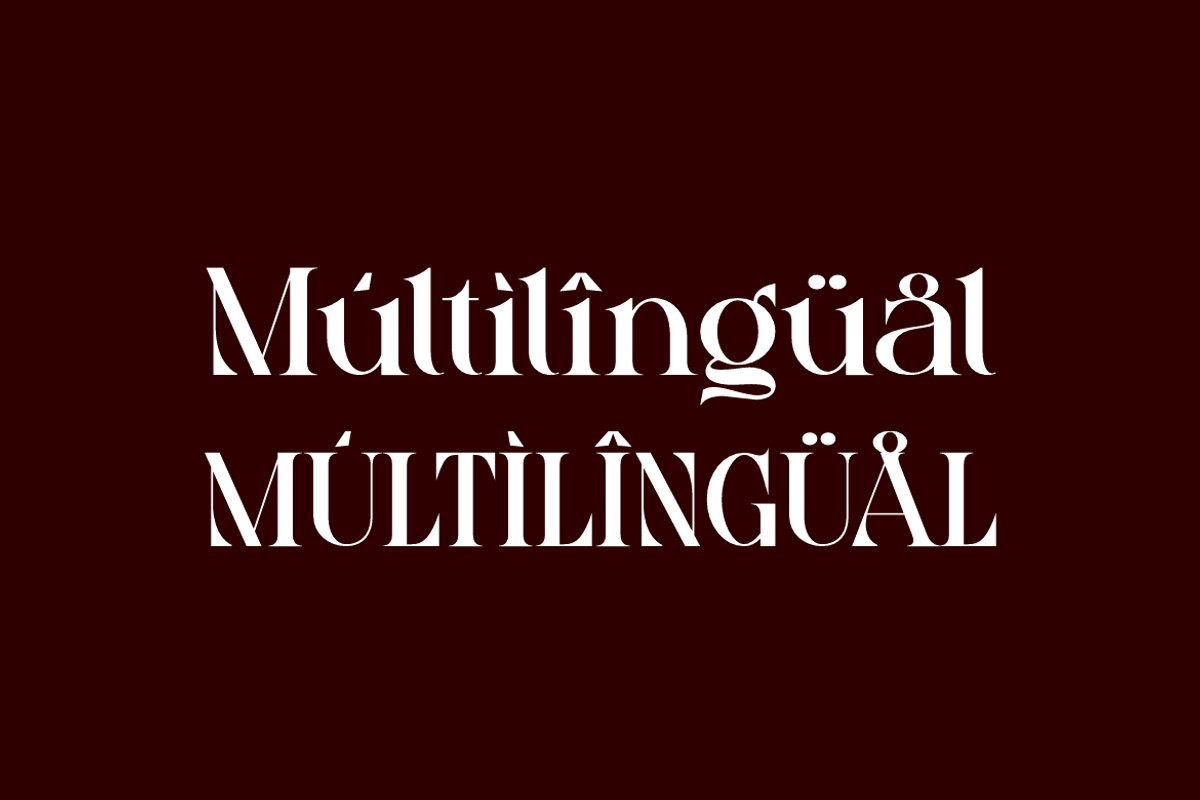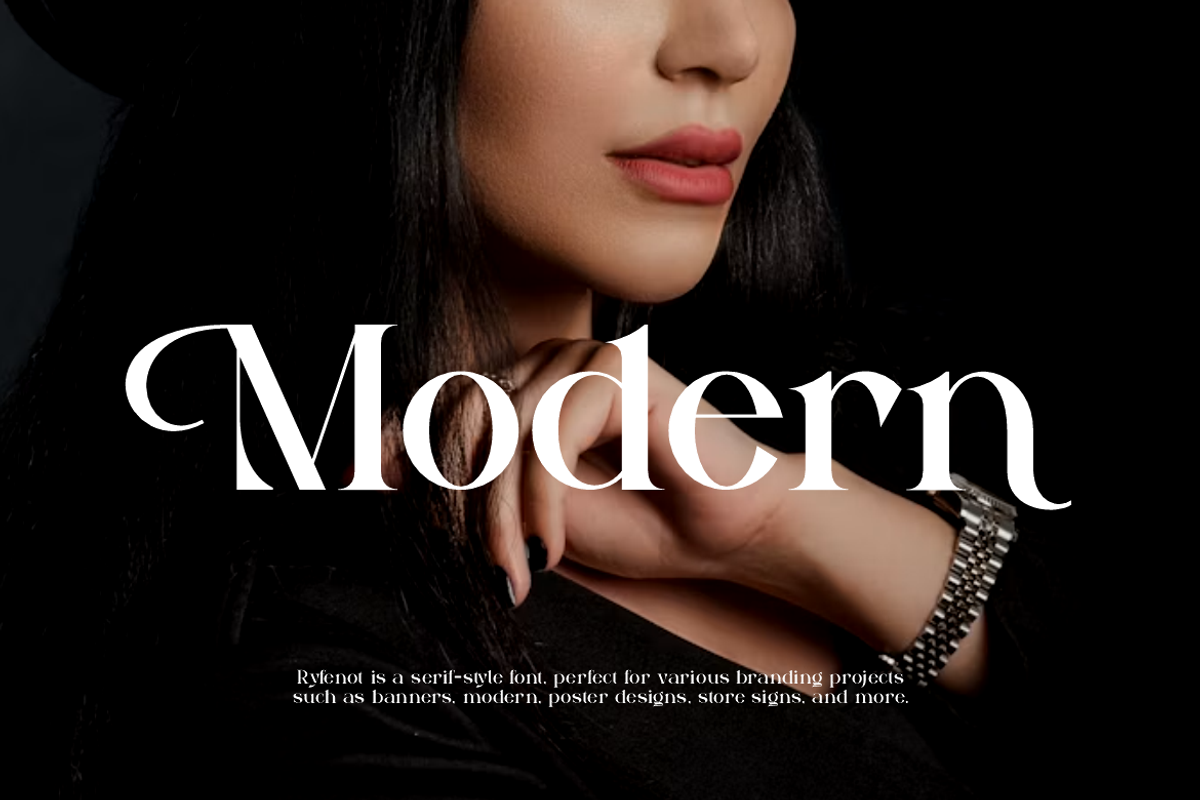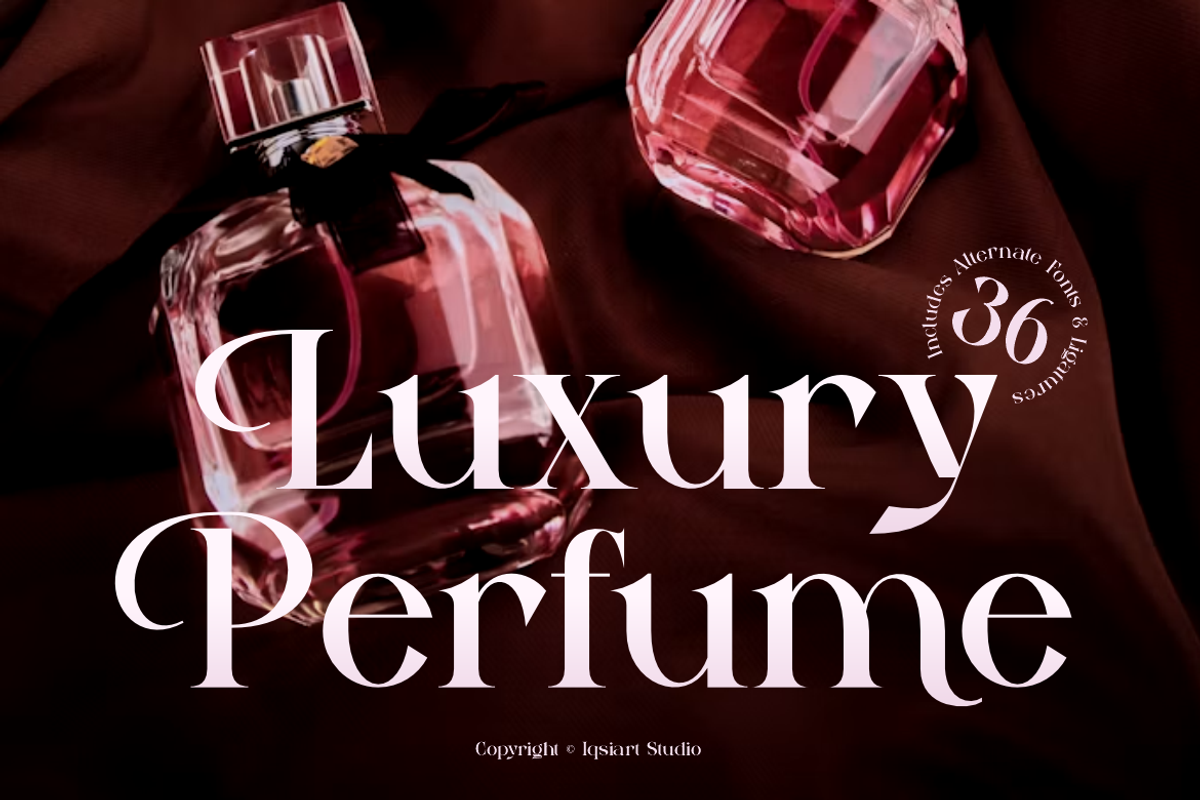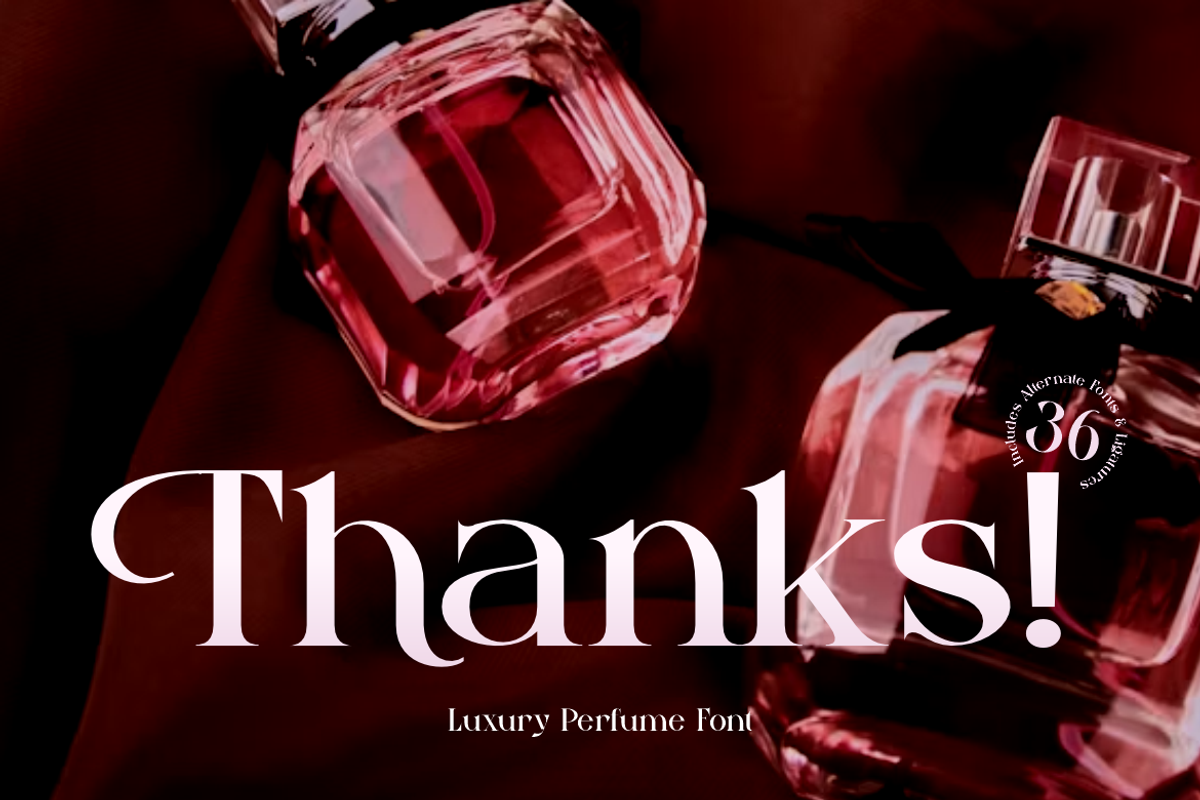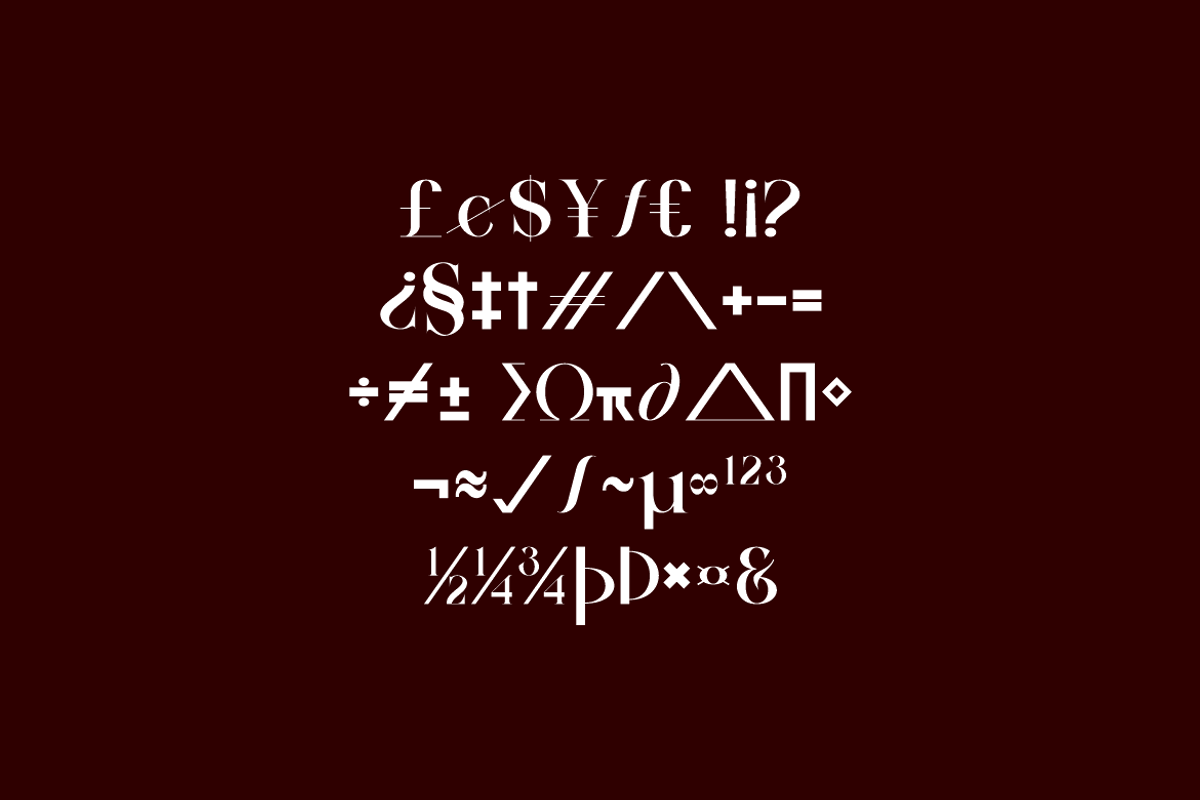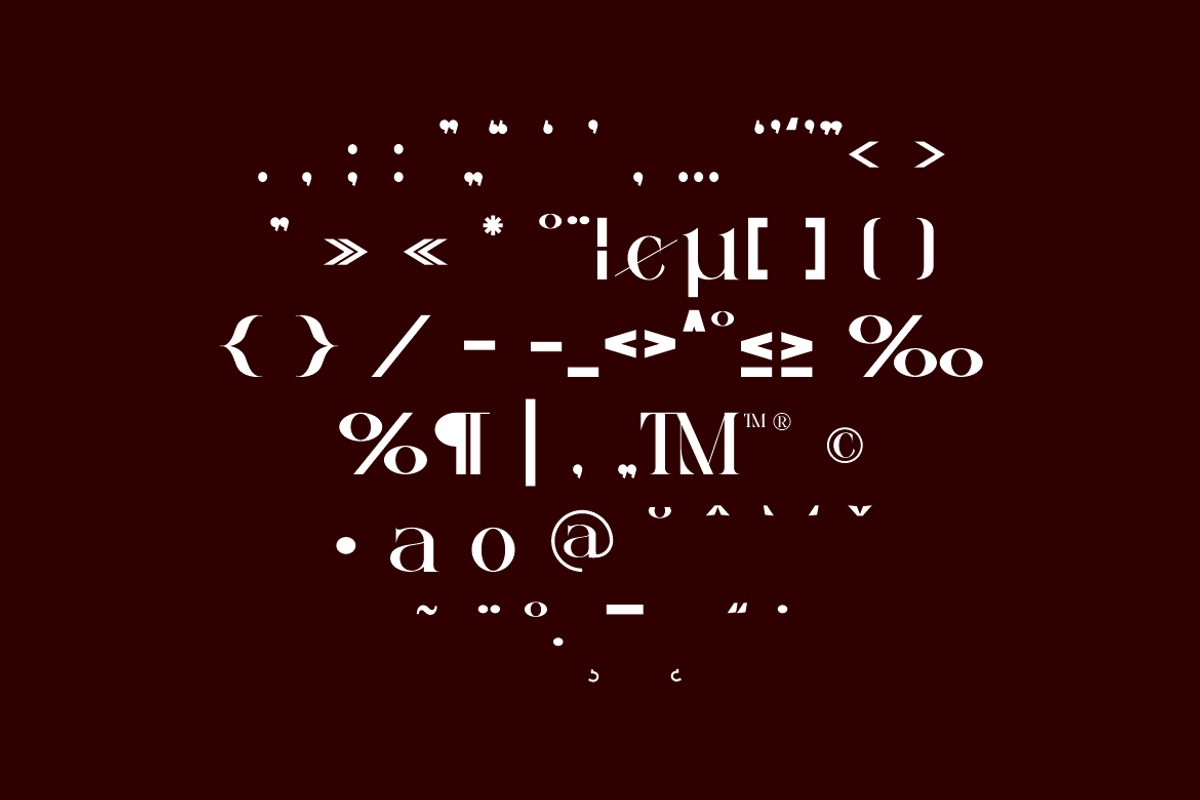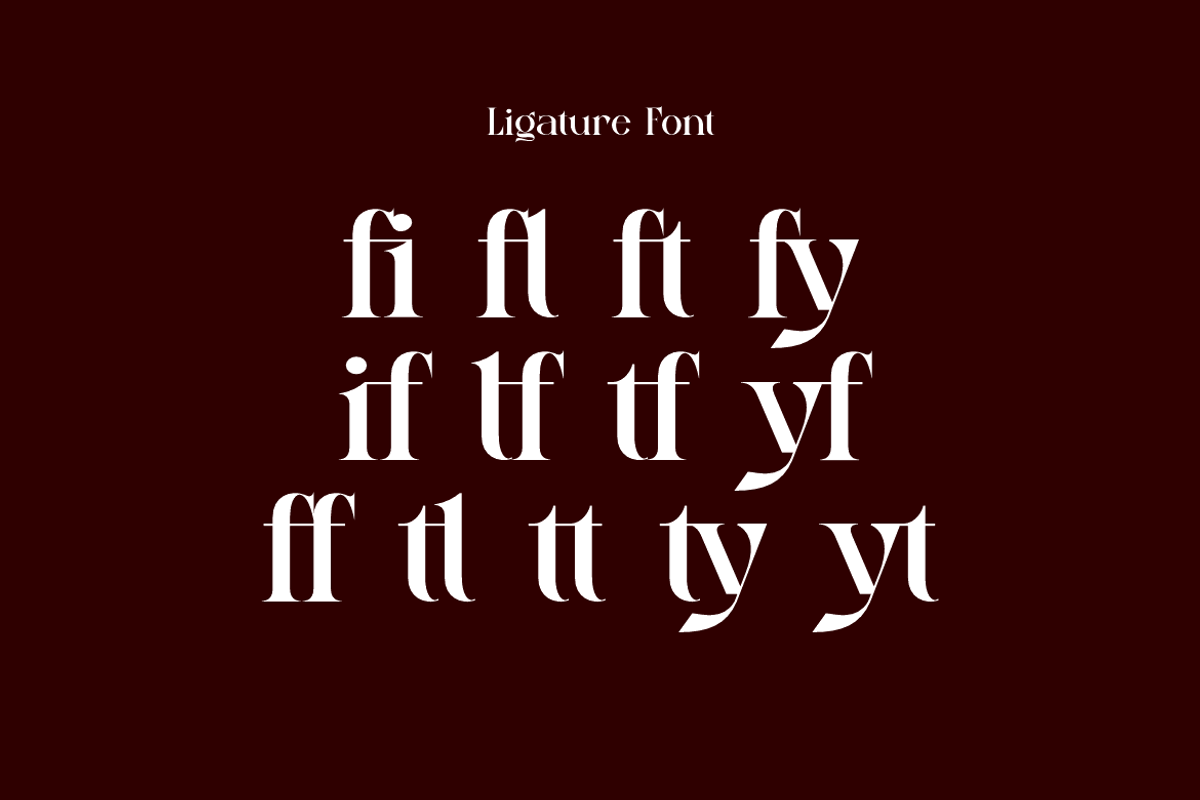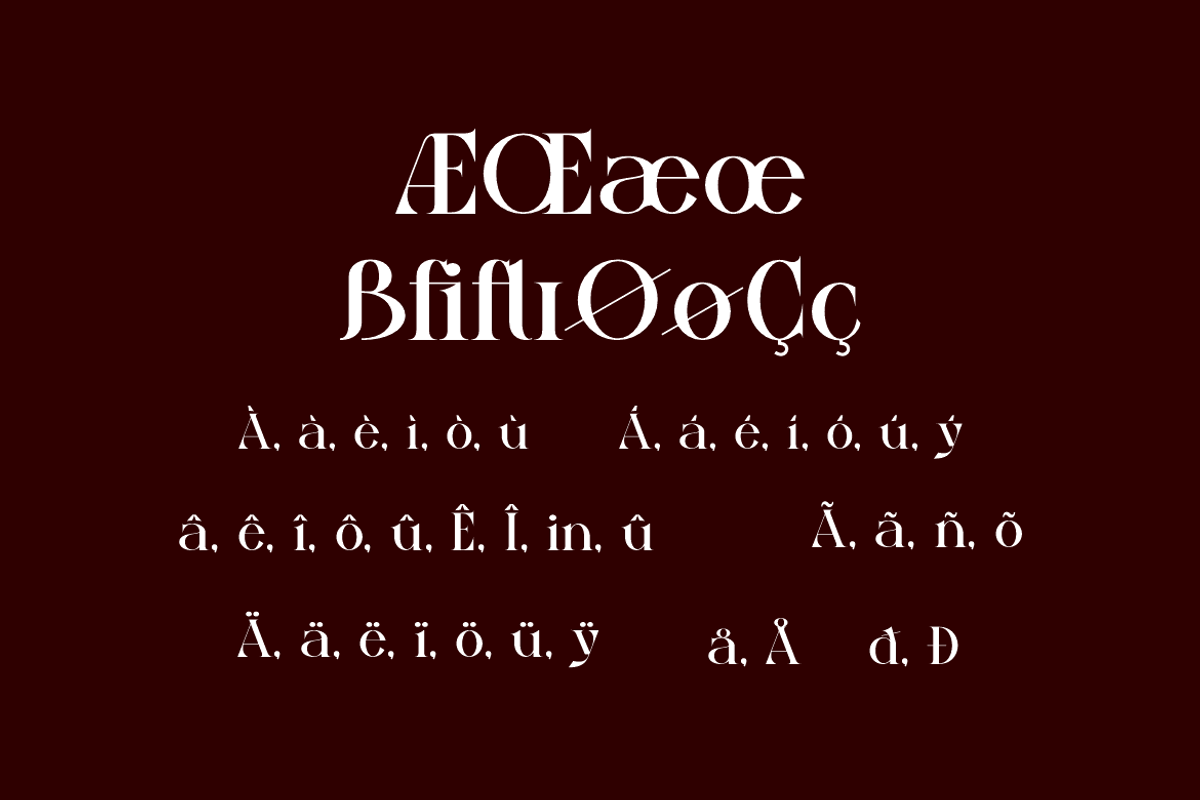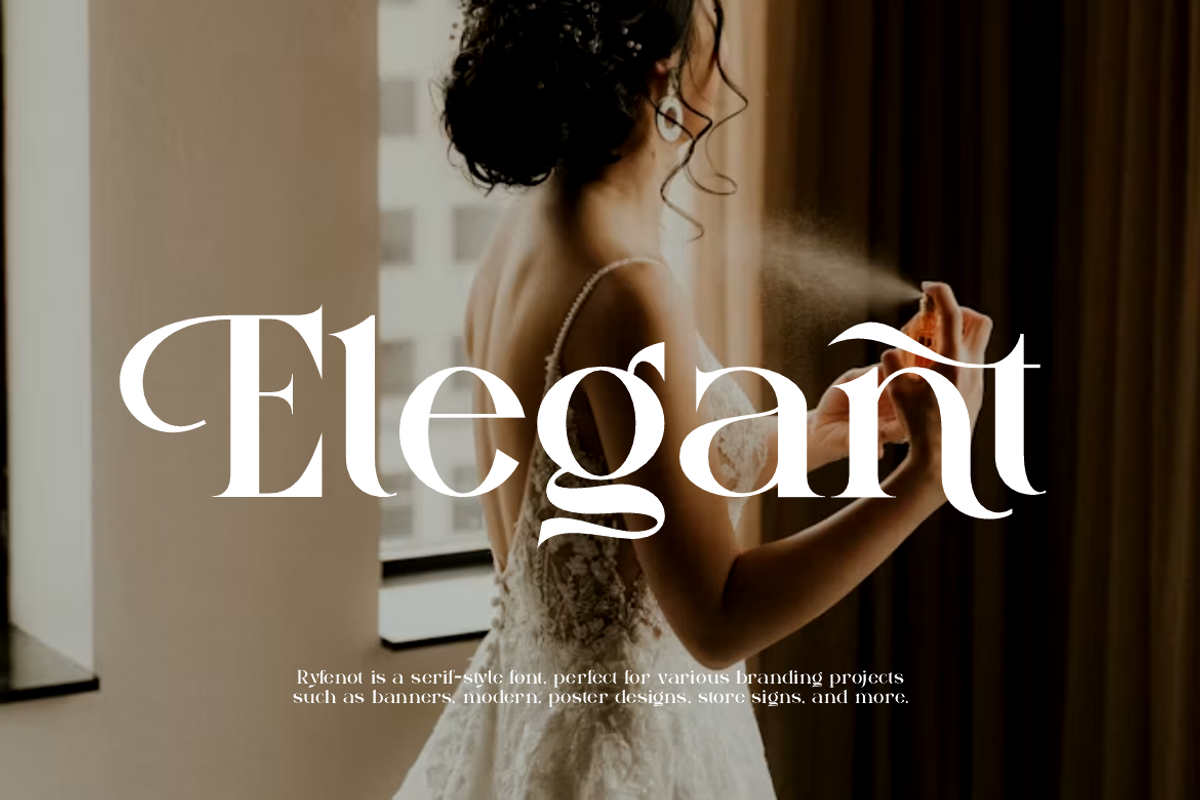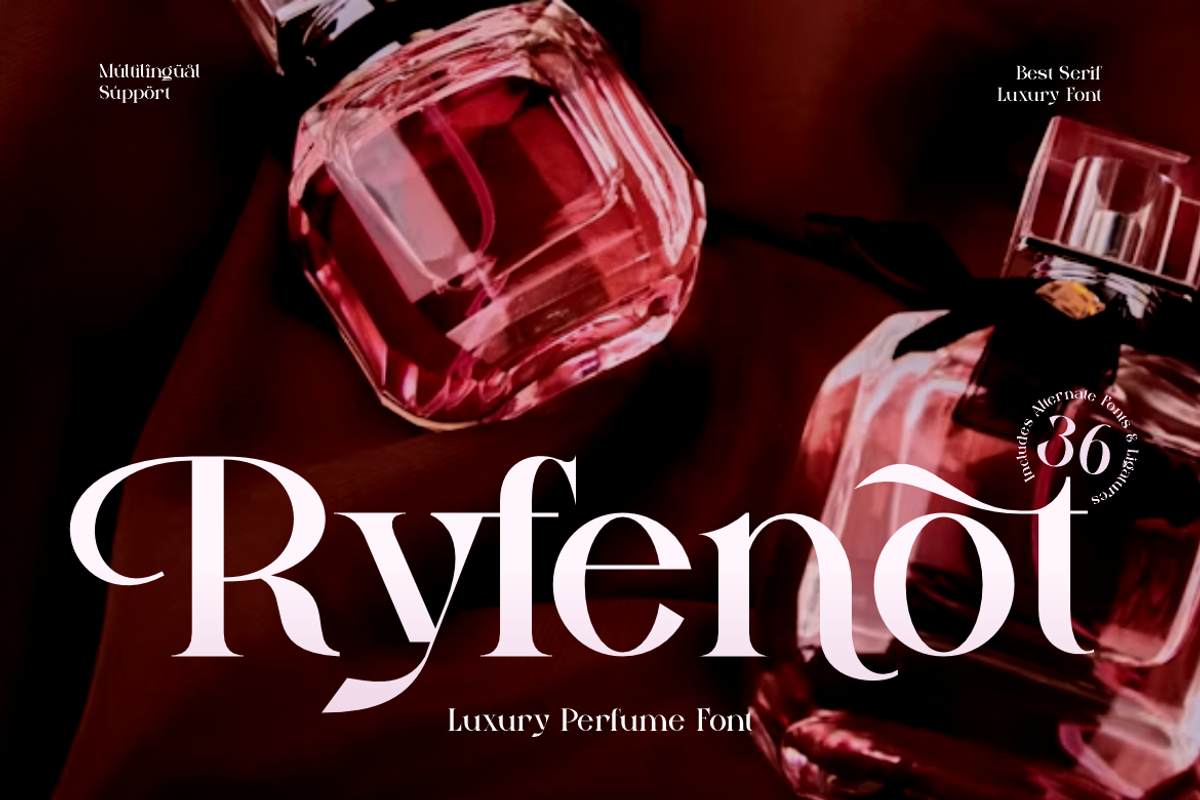
Ryfenot - Luxury Perfume Font
Ryfenot Font is a modern and authentic display typeface
that suits a variety of design needs. We offer a wide range of themes